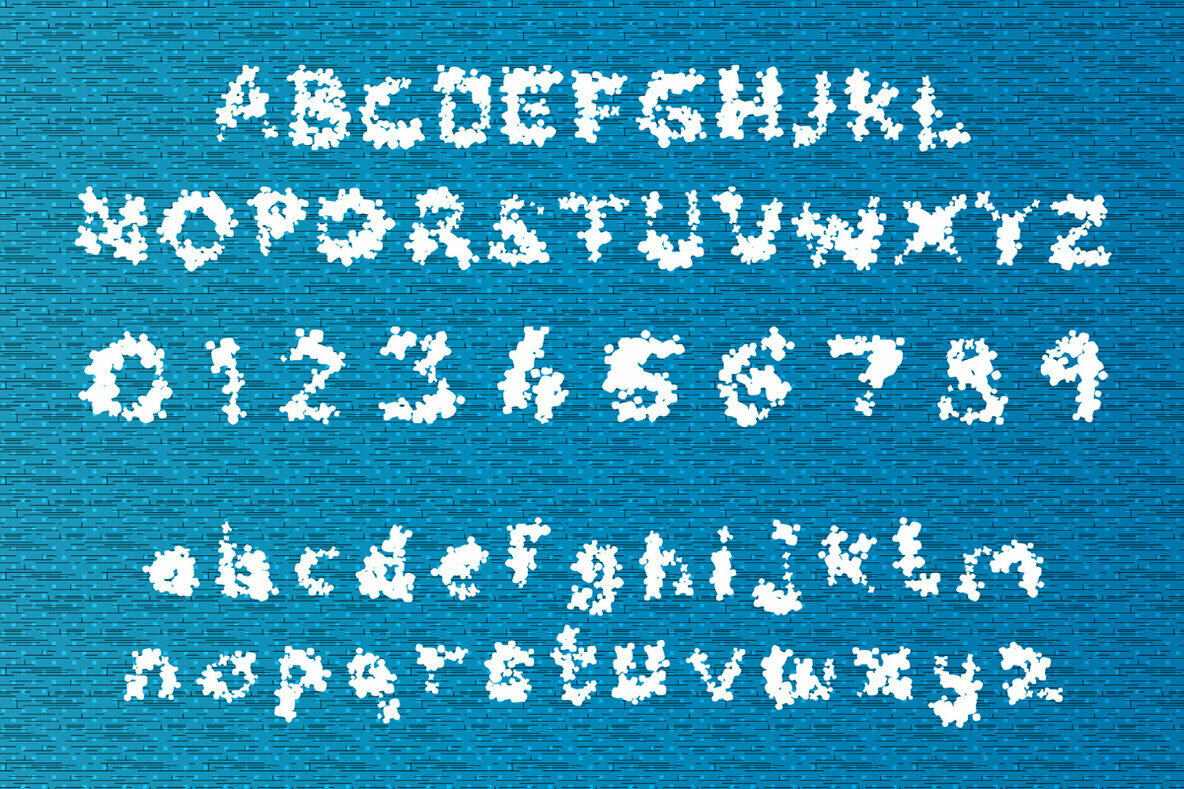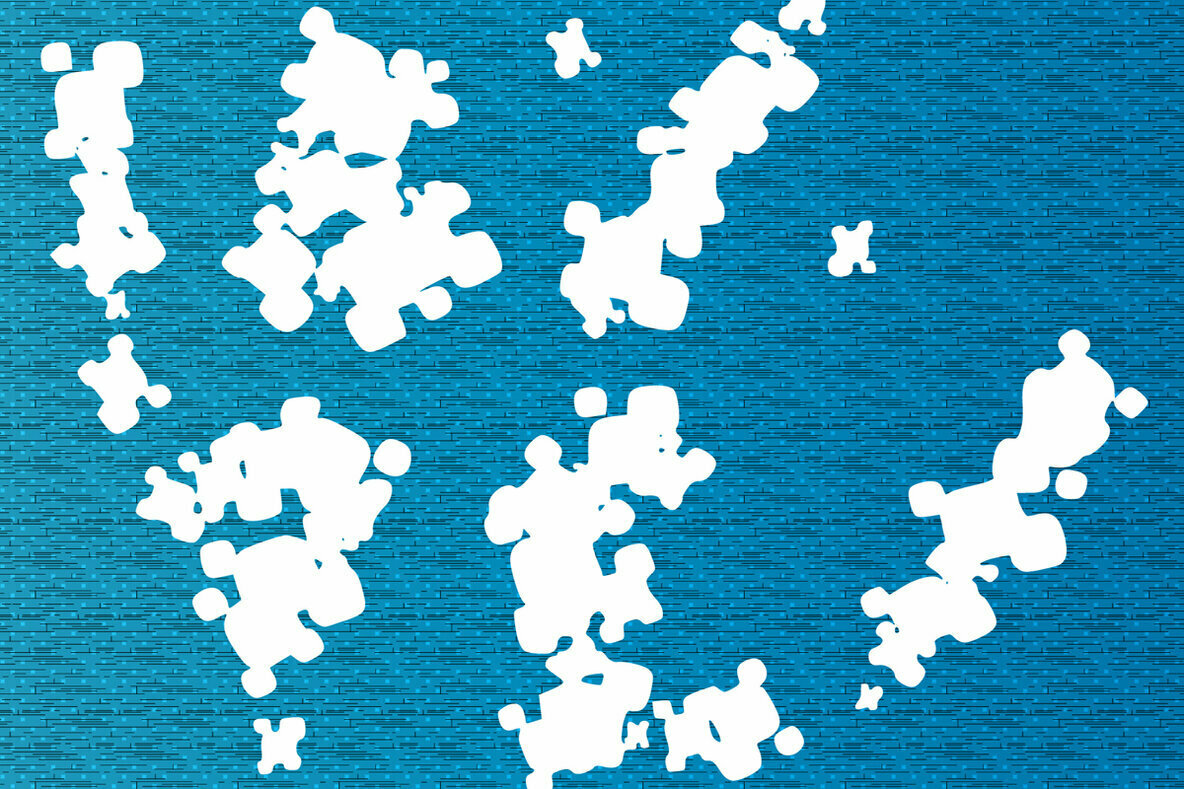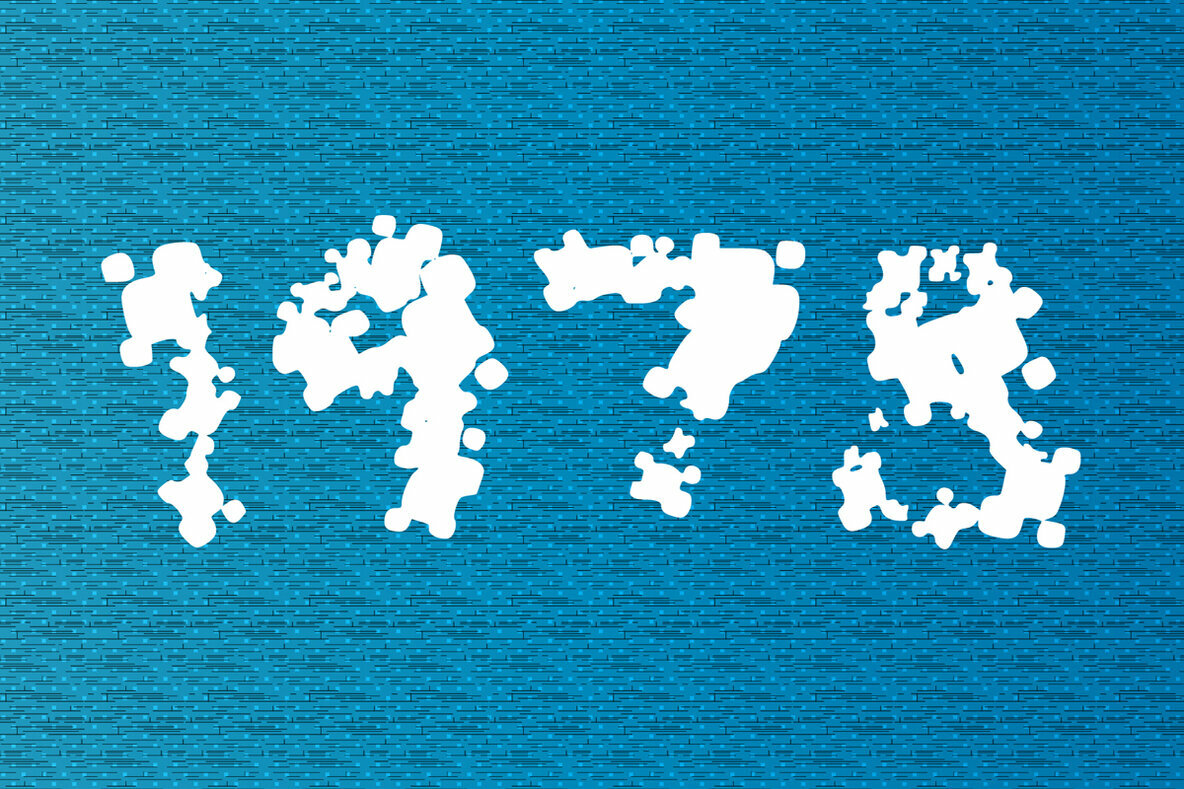
Digital Camo Font
Digital Camo
Digital Camo is a display font. Get creative with its unique playfulness, and use it to brighten up any crafting projects!